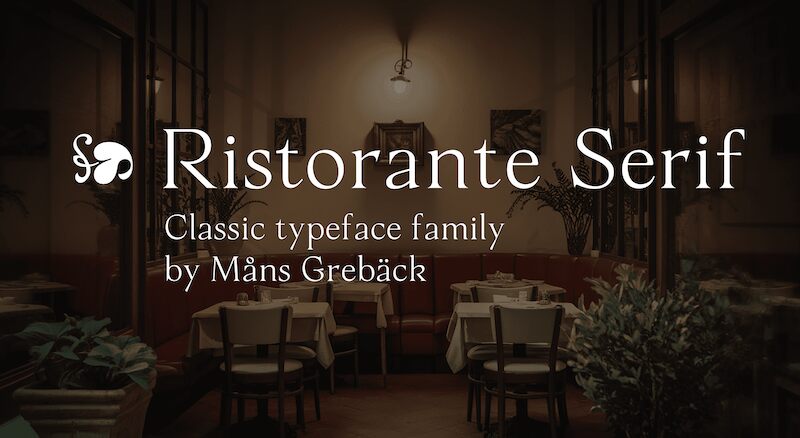
Ristorante Serif font by Mans Greback is a thin and refined serif typeface with an elegant, sophisticated look. Its clean lines and subtle serifs evoke a classic sophistication, perfect for high-end branding. The traditional appearance combined with its gorgeous aesthetic makes it appropriate for luxury products or companies.
Use this free serif font in packaging designs, label designs, logotypes, personal signatures or letterheads. It’s excellent for flyers, postcards, business cards of advanced personal products design where you might want to gain attention with exclusivity or professionalism. Other suitable usages include book covers, posters and fine art motives that require some sort of calligraphic influence.